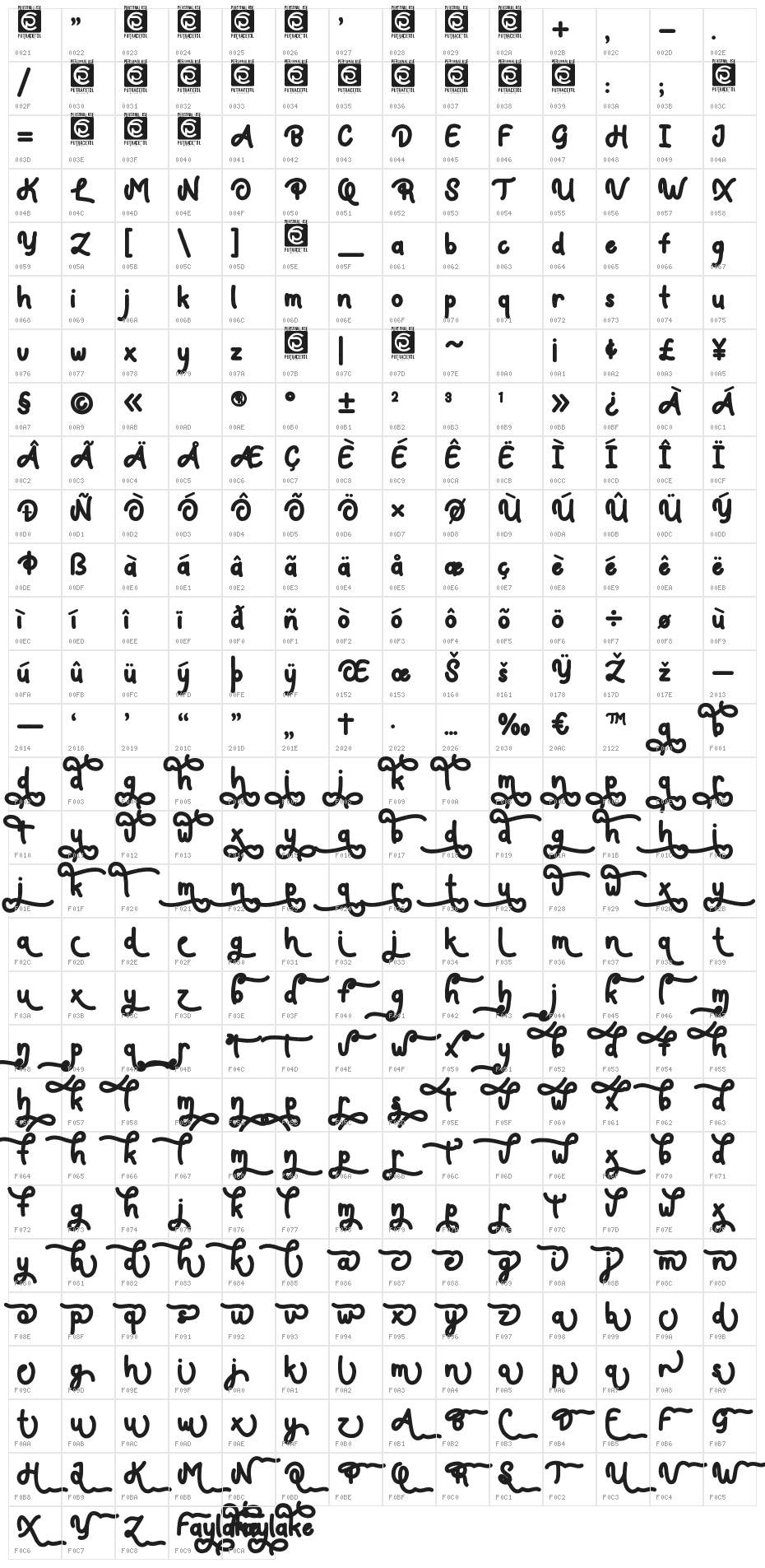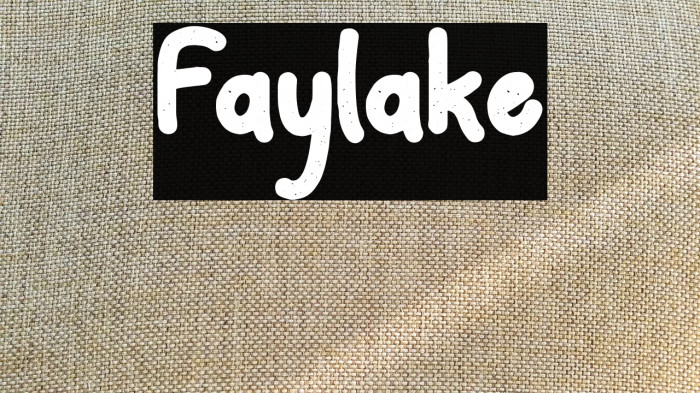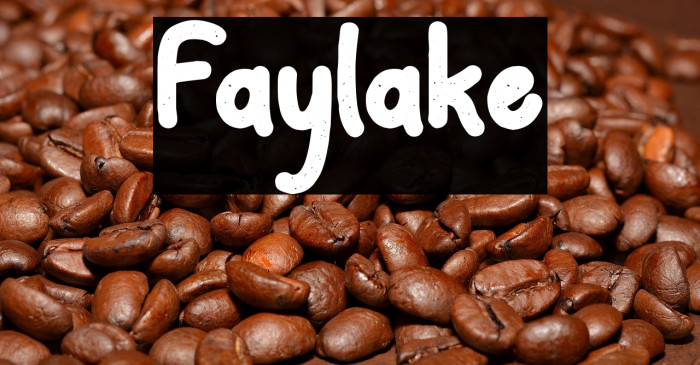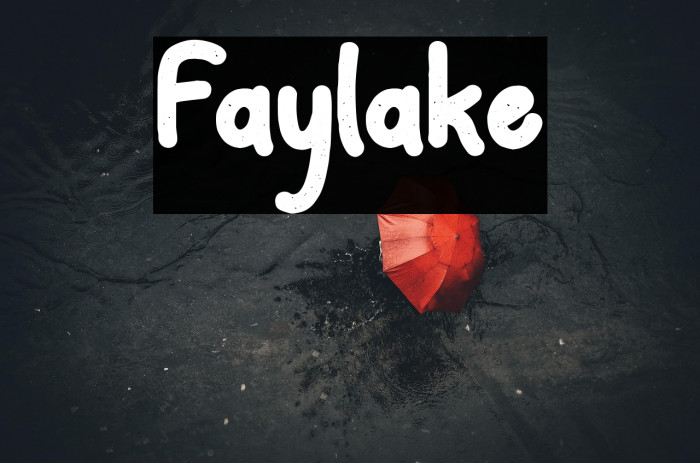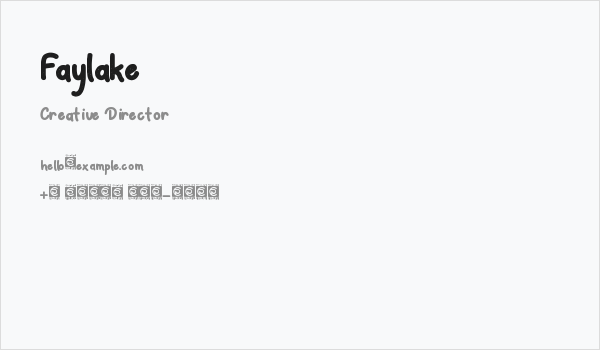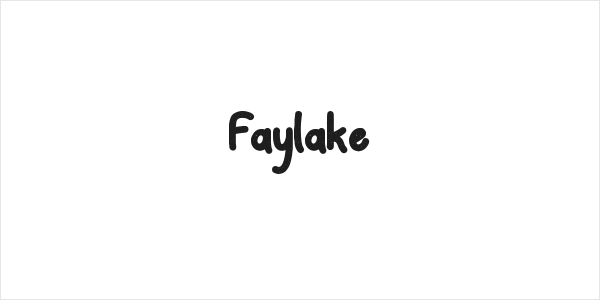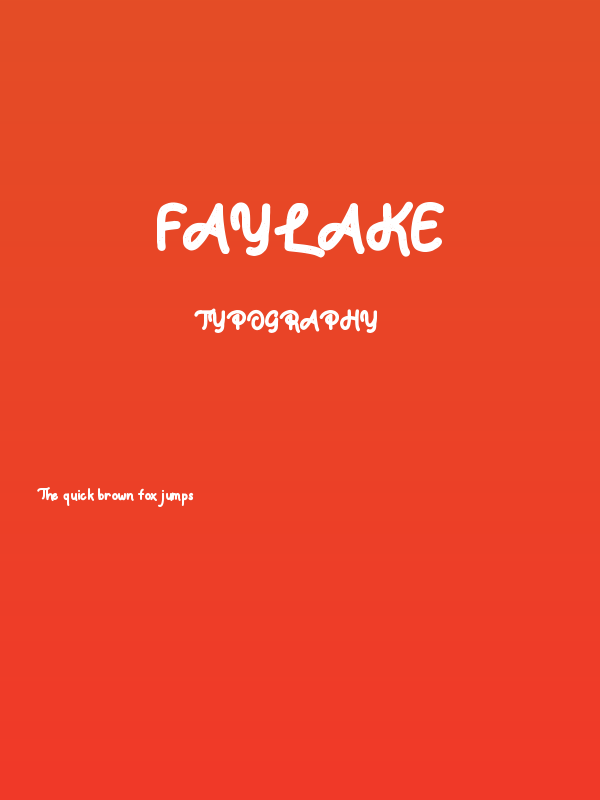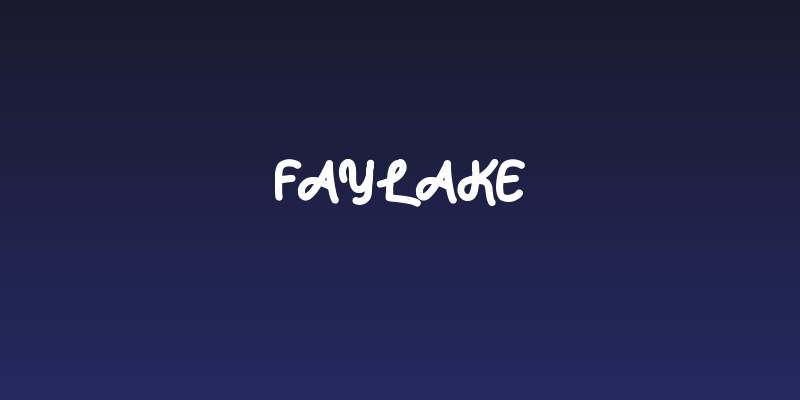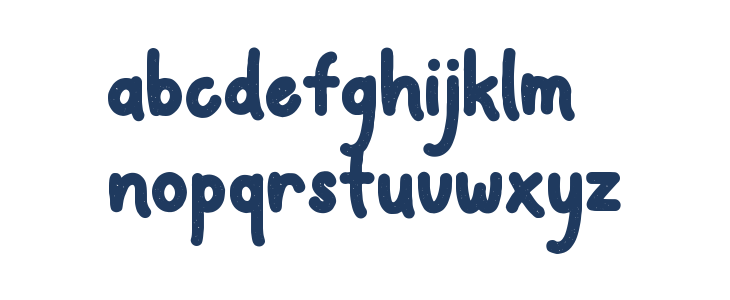
Faylake Font
Faylake Description
This font features a playful and bold style with a handwritten appearance. The characters are rounded and slightly irregular, giving them a casual and friendly look. The uppercase and lowercase letters maintain a consistent weight, contributing to a cohesive design. The font's unique character is emphasized by its thick strokes and smooth curves, making it stand out in any design. The special characters are integrated seamlessly, maintaining the overall aesthetic. This font is ideal for projects that require a personal touch or a fun, informal vibe.
| Overall Style | Playful, Casual |
| Use Case | Headlines, Logos, Informal Text |
| Proposed Projects | Ideal for greeting cards, children's books, playful branding, and social media graphics. |